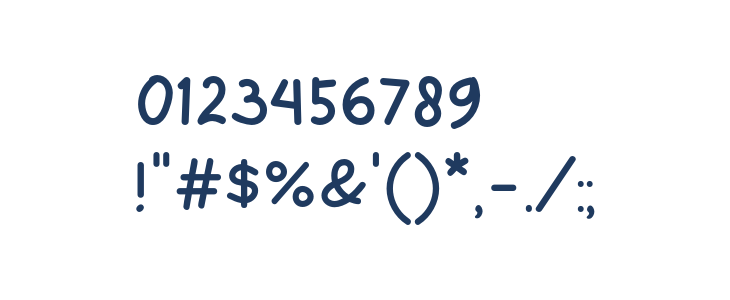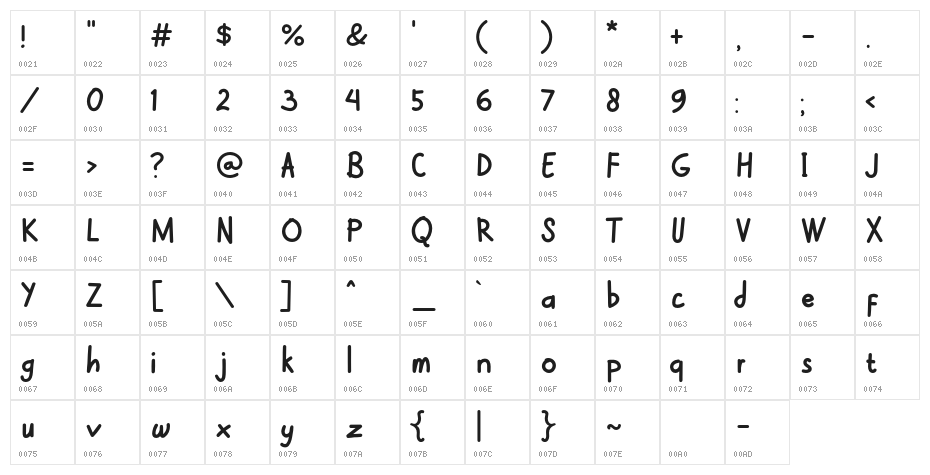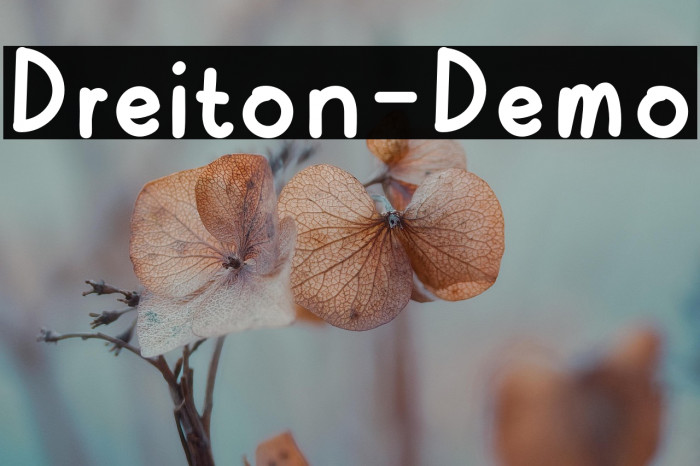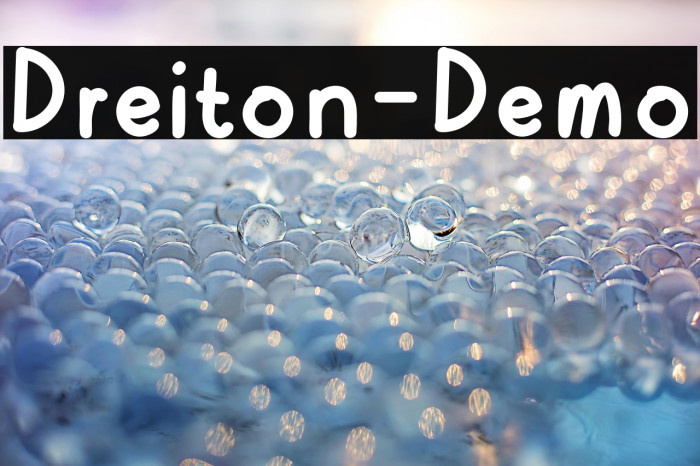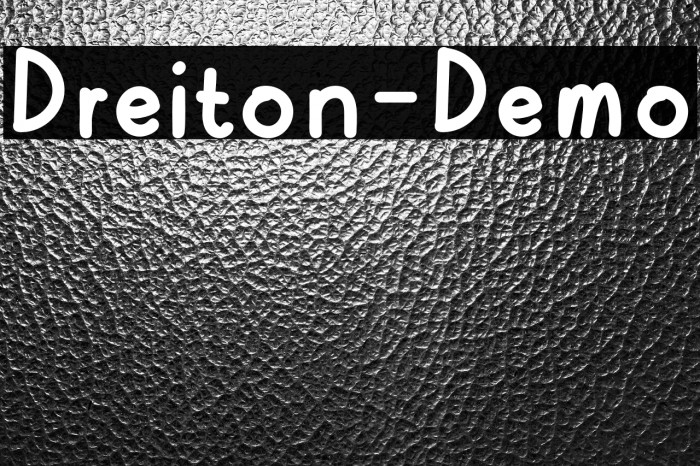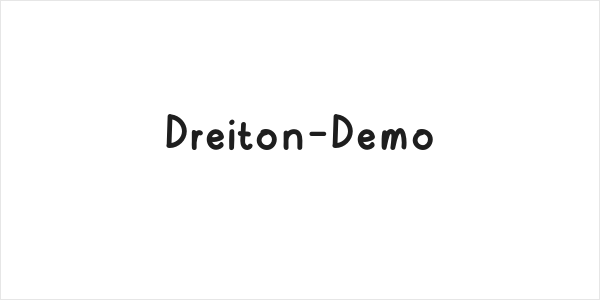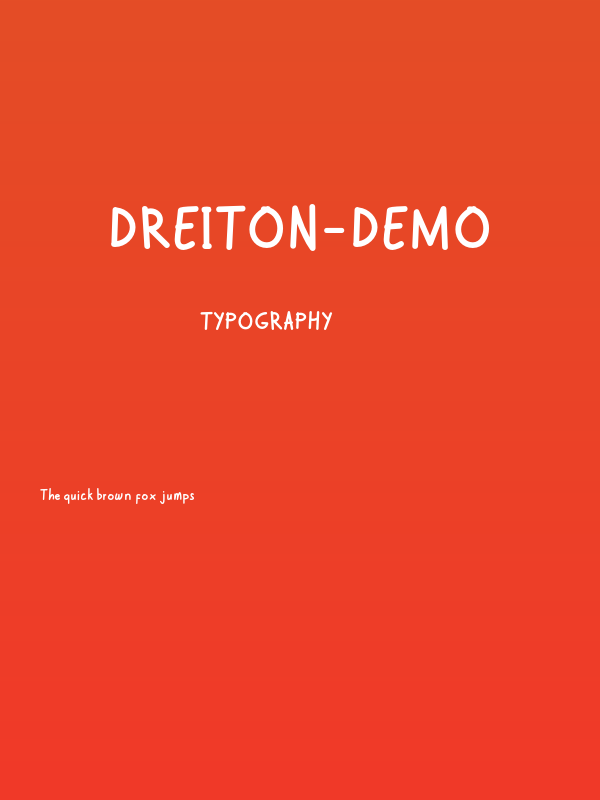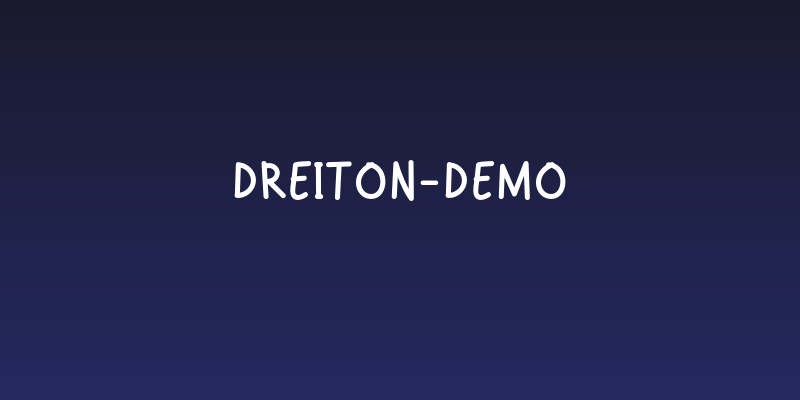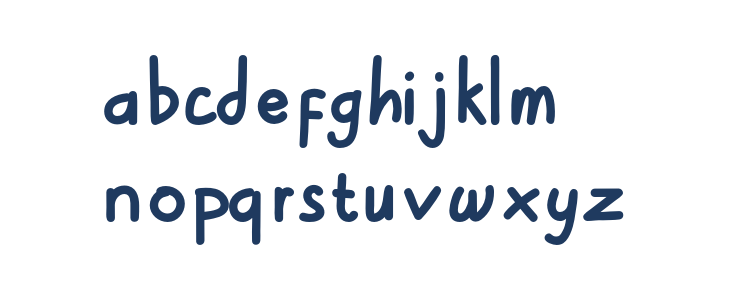
Dreiton-Demo Font
Dreiton-Demo Description
This playful and informal font features a handwritten style with a casual, friendly appearance. The letters are slightly rounded, giving them a soft and approachable feel. The uppercase characters maintain a consistent height, while the lowercase letters exhibit a charming irregularity, adding to the font's whimsical nature. Numbers and special characters are designed to match the overall style, ensuring a cohesive look across all text. The font's strokes are moderately thick, providing good readability while maintaining its unique character.
| Use Case | Headlines, Informal text, Branding |
| Proposed Projects | Ideal for children's books, greeting cards, playful branding, and casual invitations. |